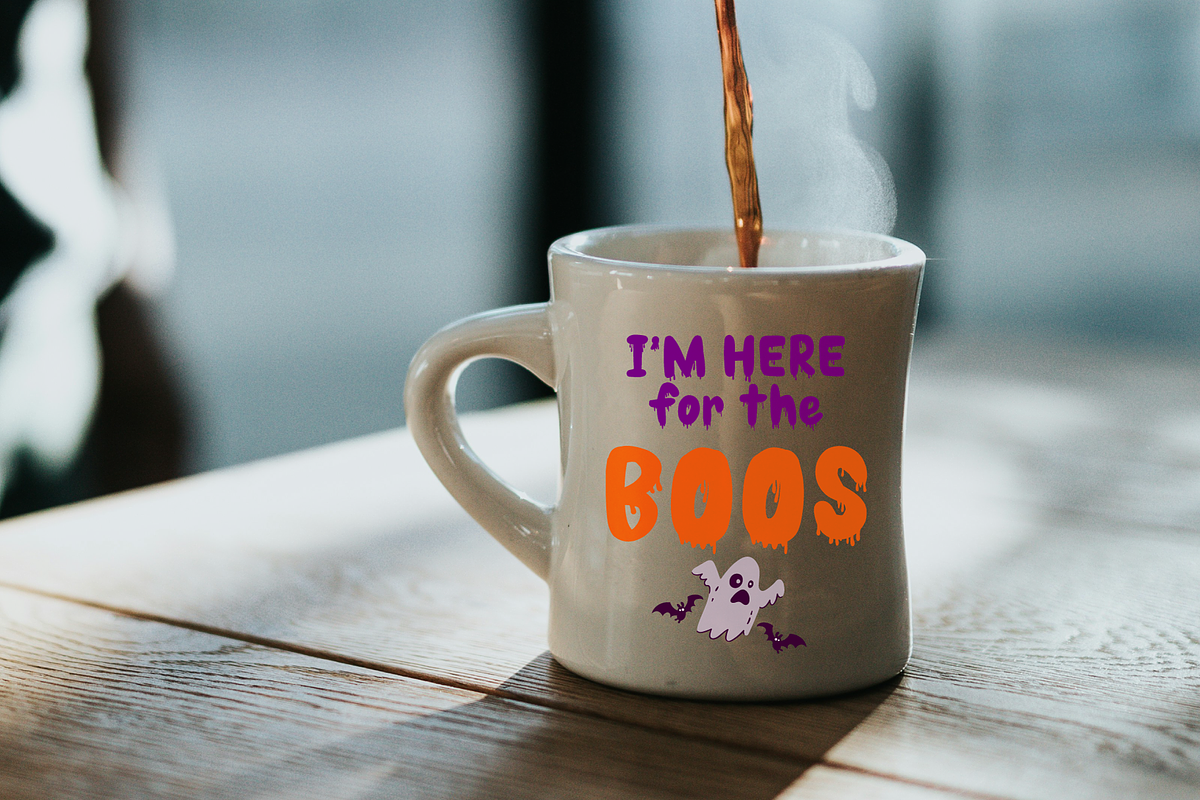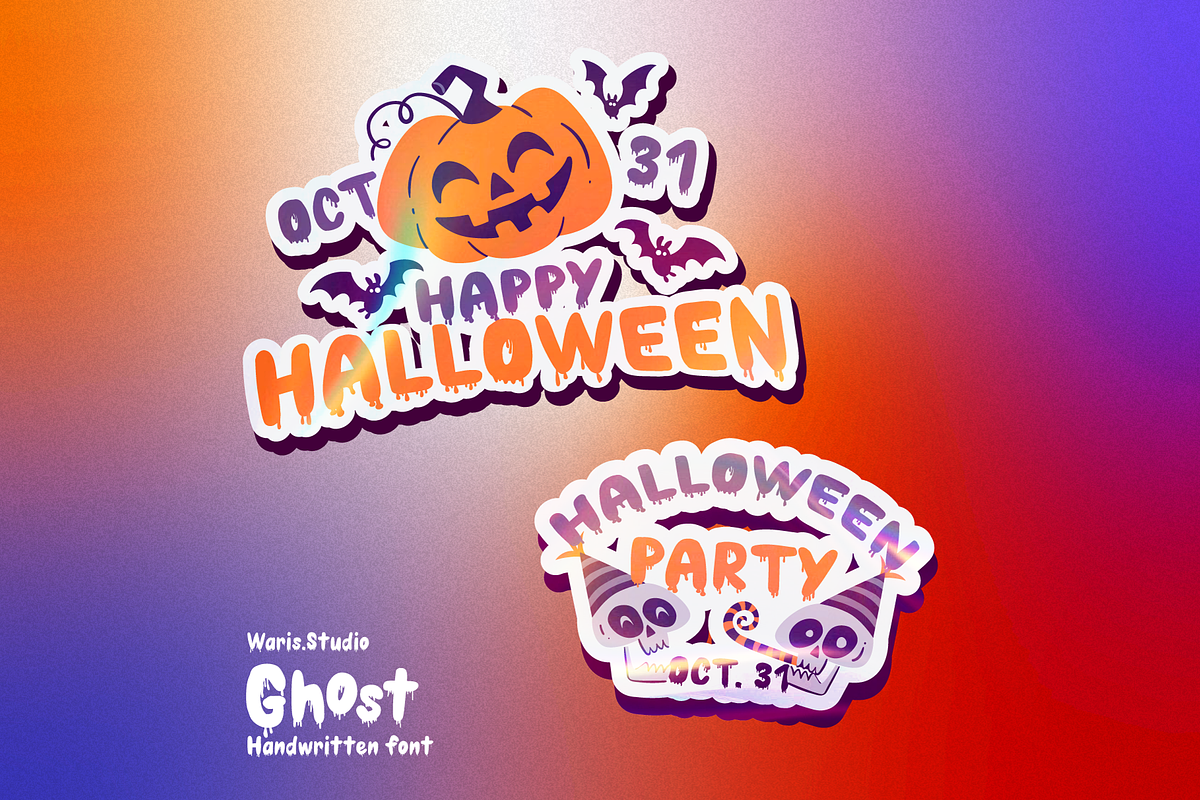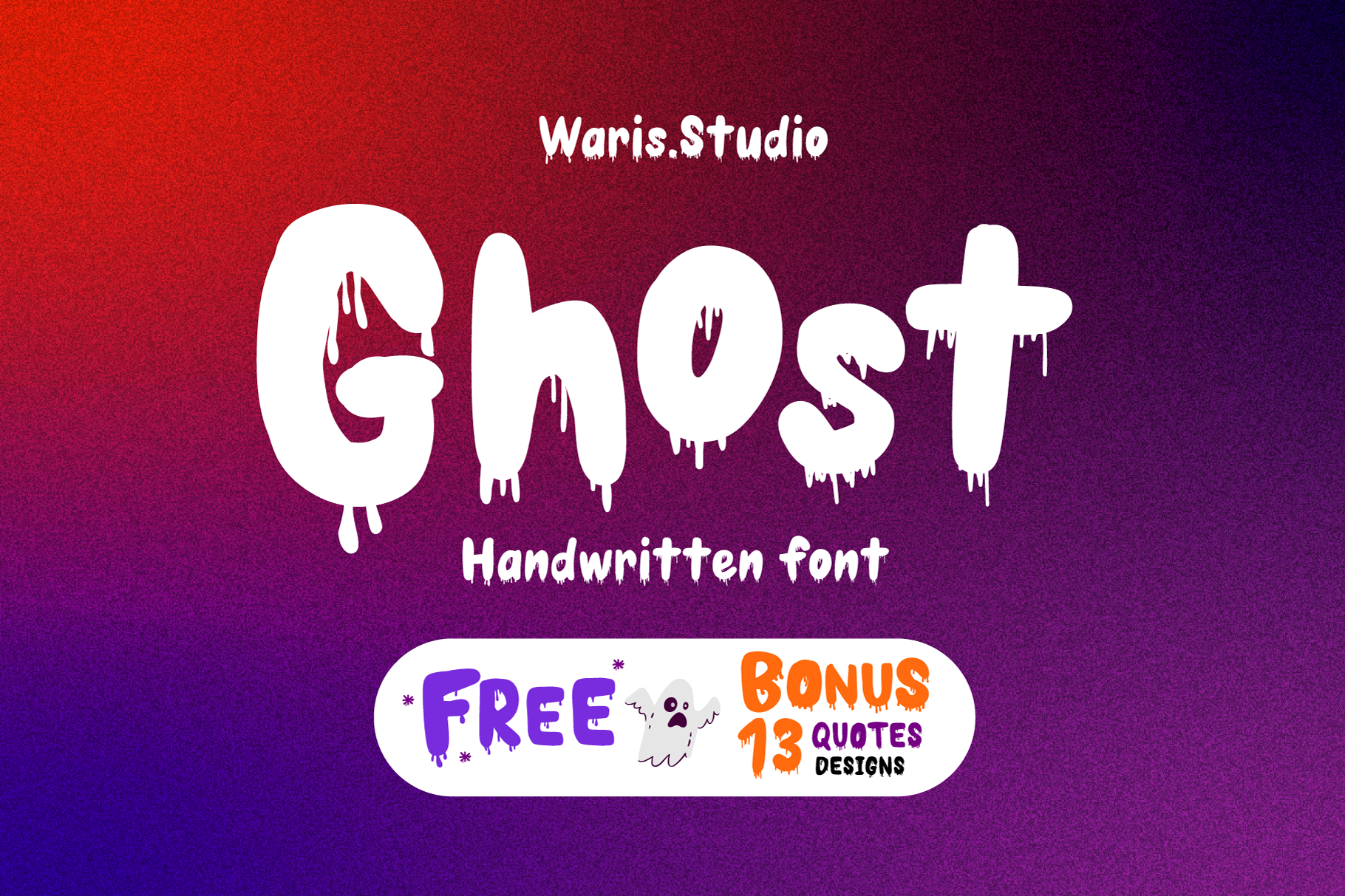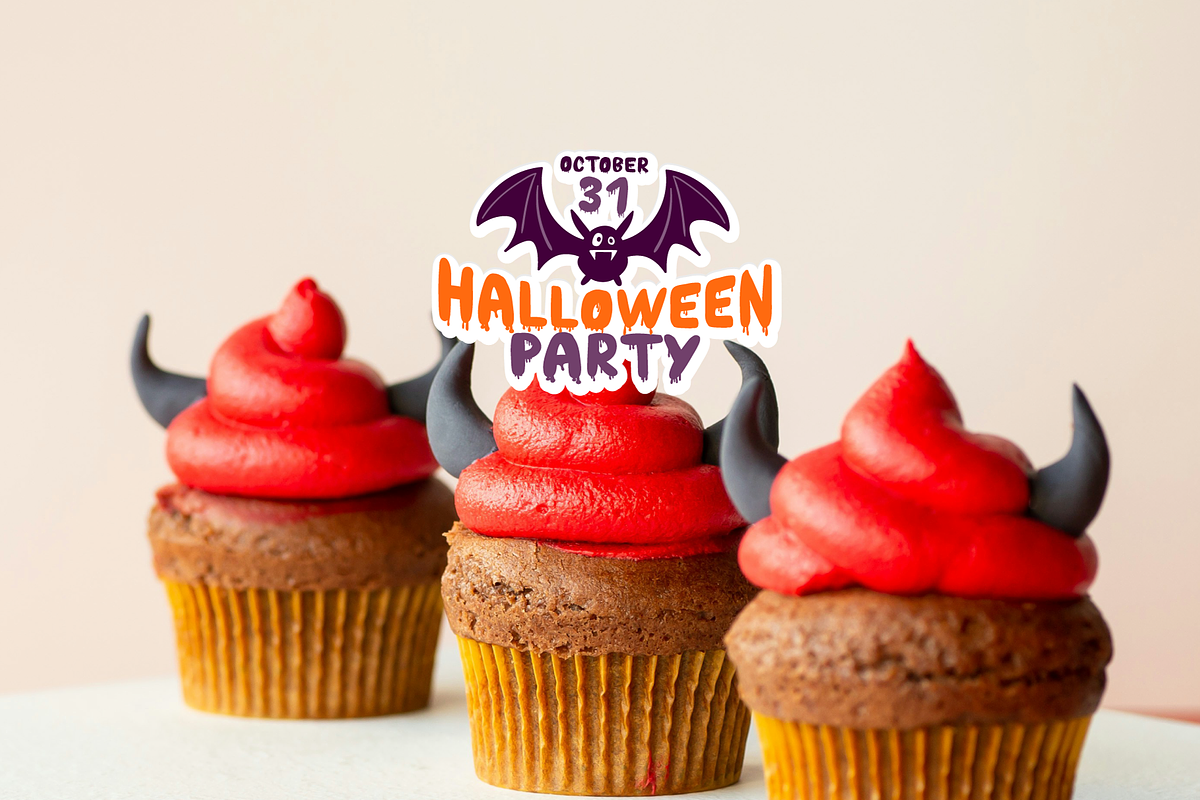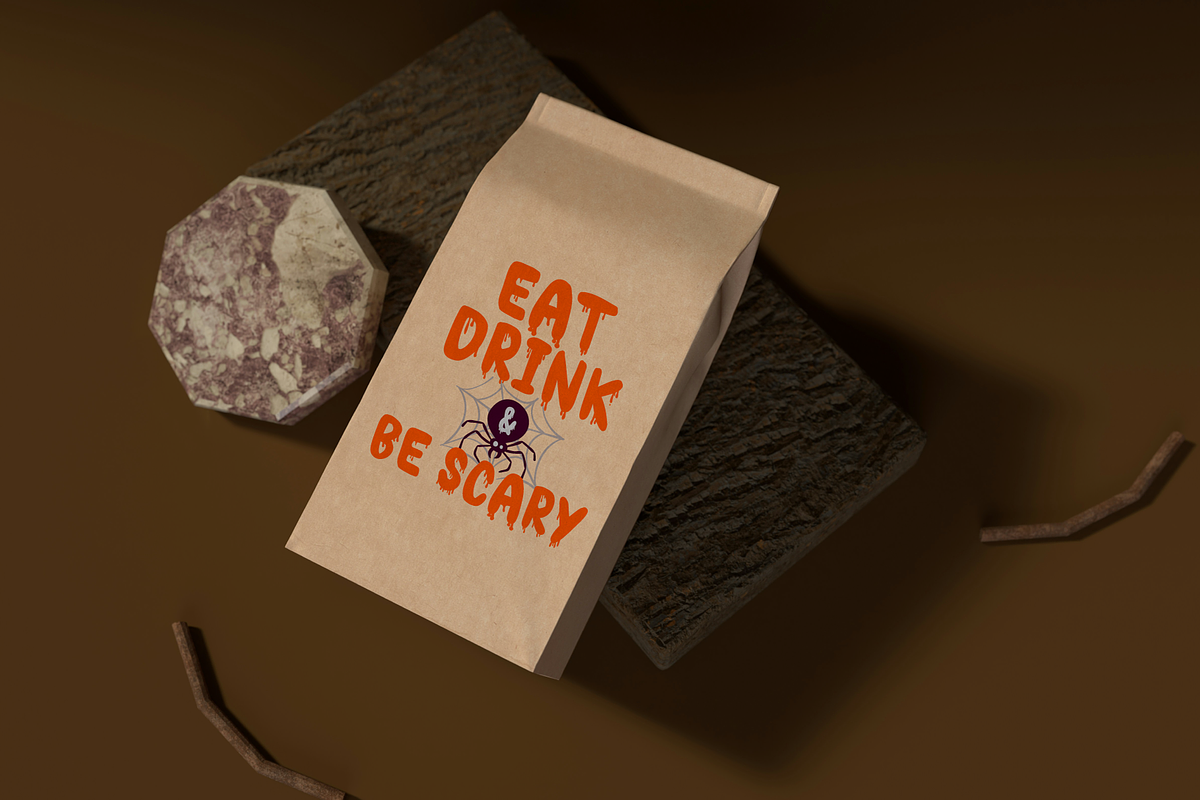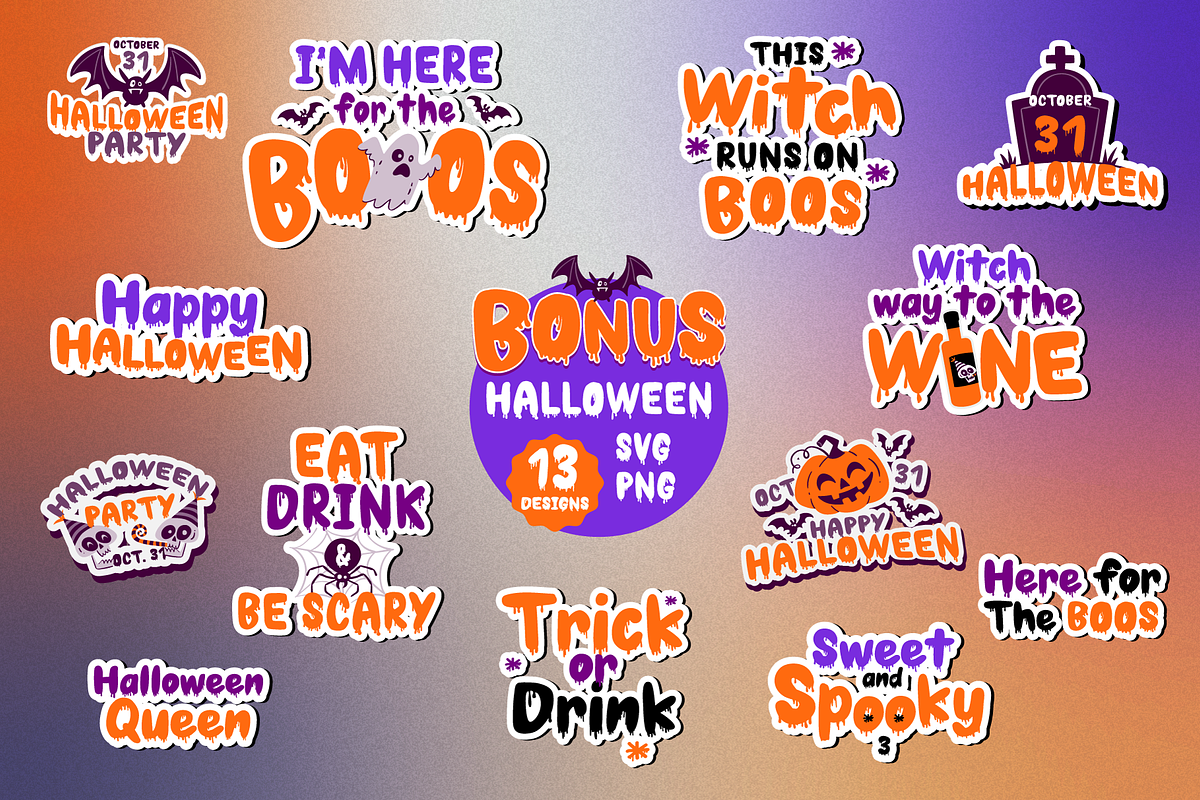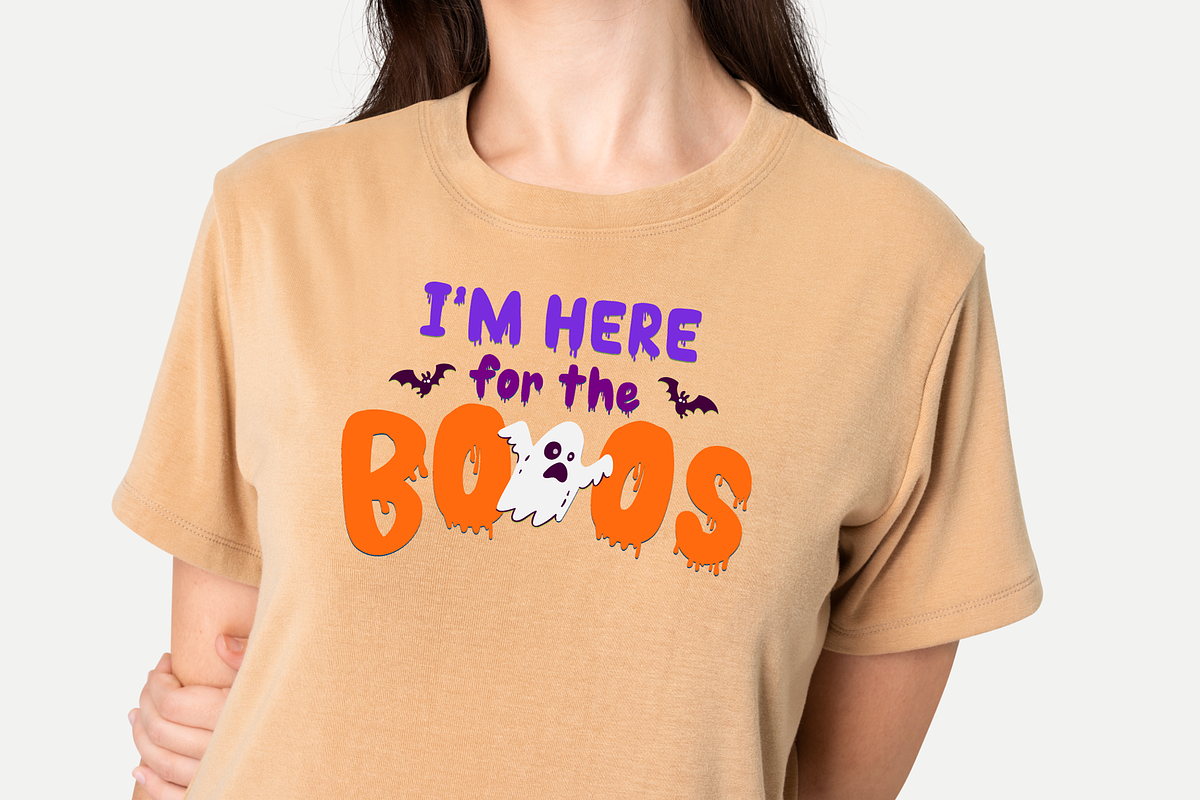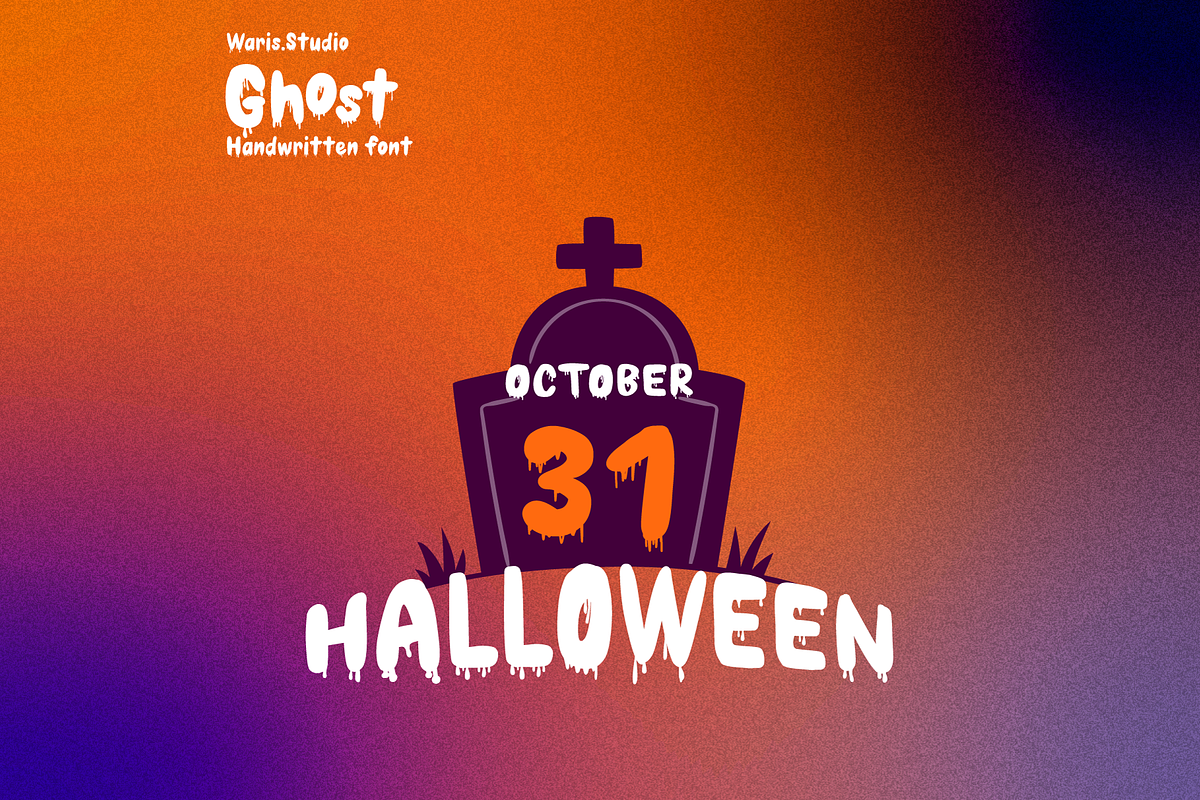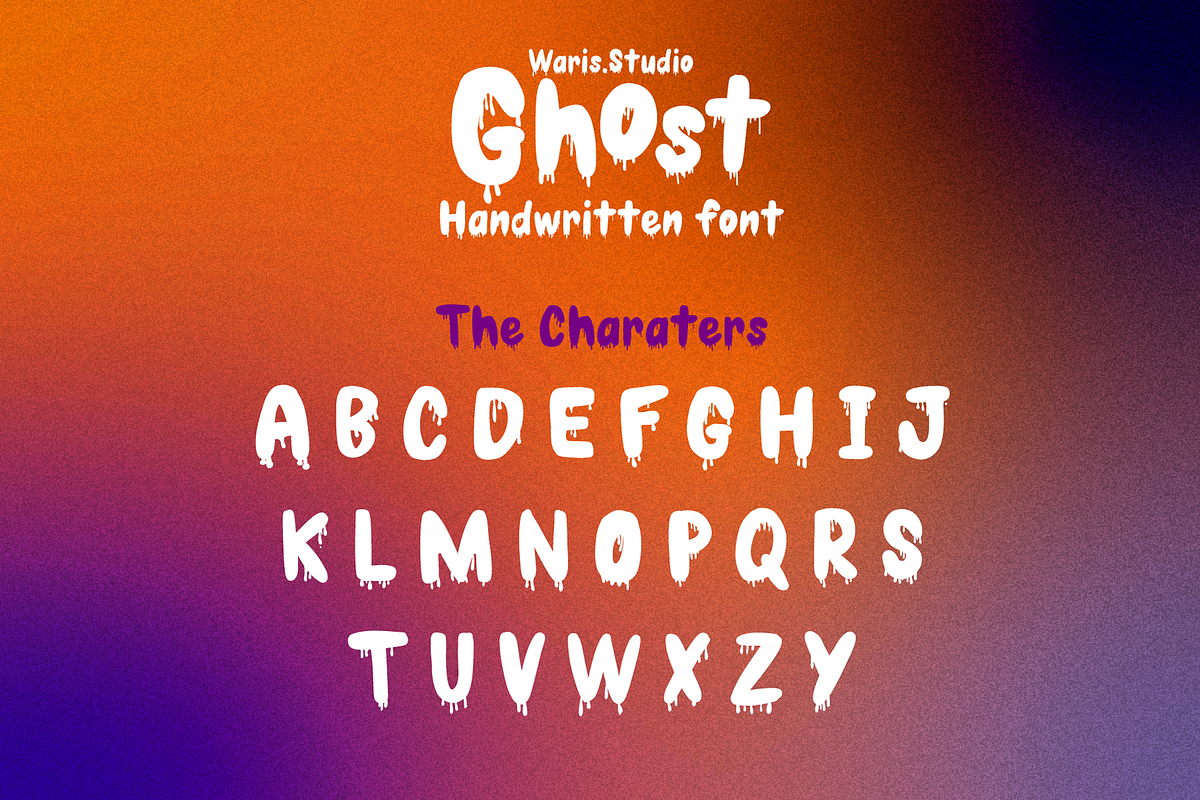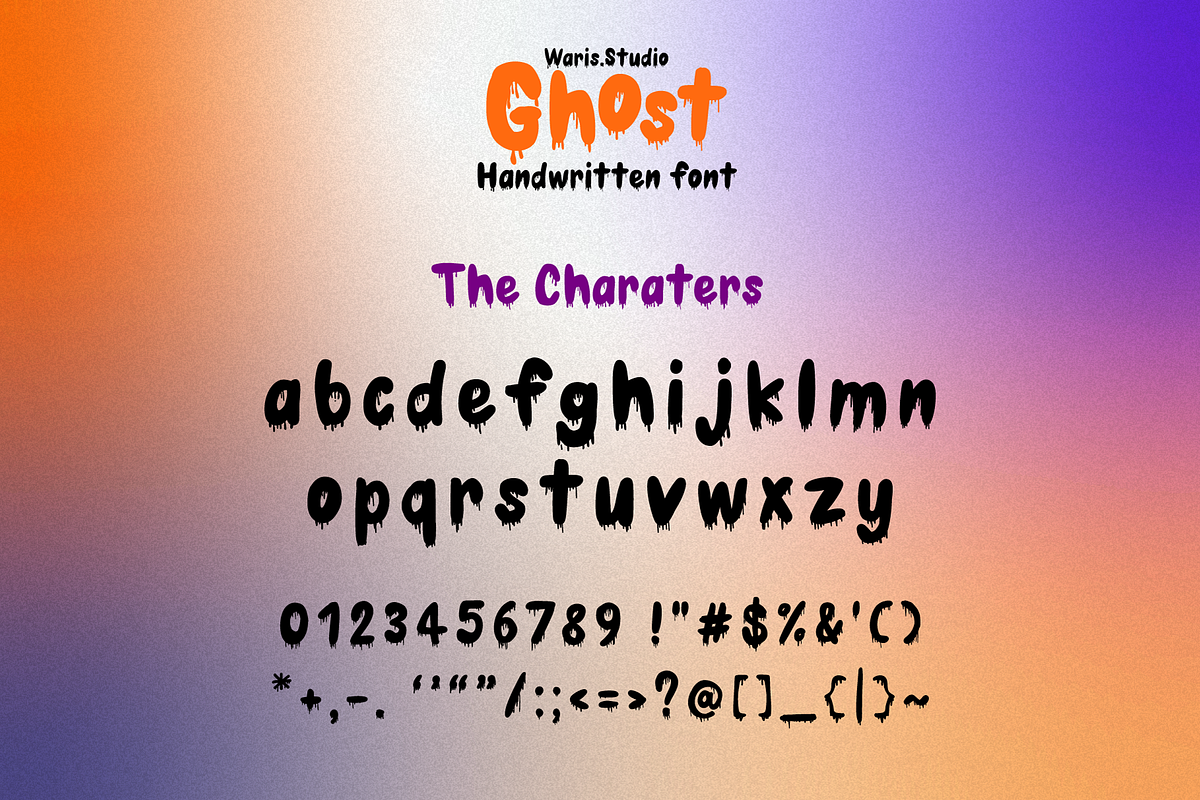
Ghost font+13 Halloween SVG Designs
Get ready for Halloween with the Ghost Font & Halloween Quotes Bundle, a must-have design kit from Waris.Studio.
This bundle features:
The Ghost Font: A unique handwritten display font with a spooky, drippy style. Perfect for headlines, posters, and Halloween-themed branding. (OTF and TTF included)
Bonus: 13 Halloween Quotes Designs: Ready-to-use, high-quality designs of popular Halloween sayings, ideal for T-shirts, party invitations, and decorations.